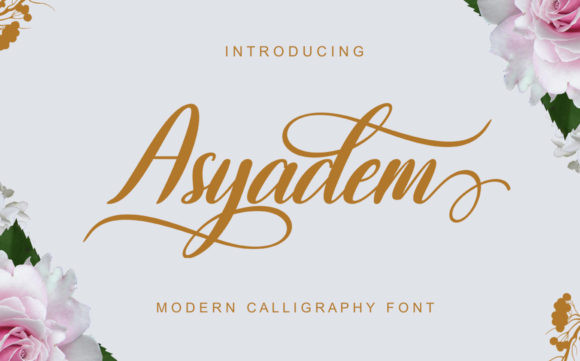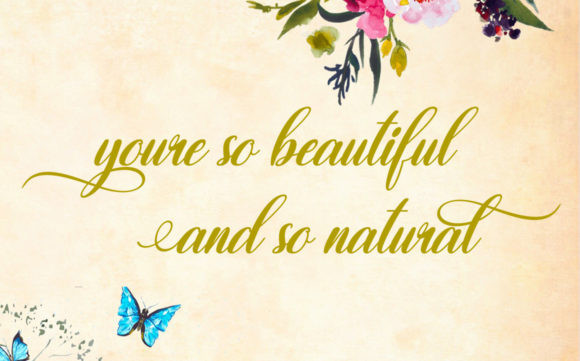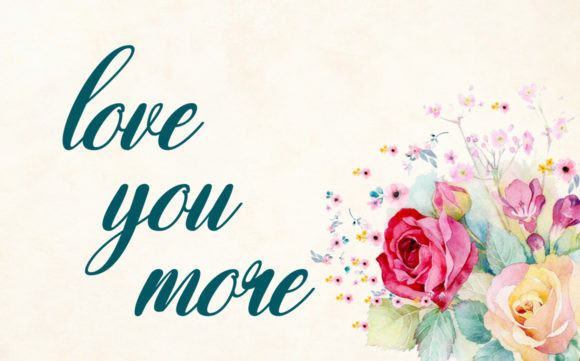
Asyadem Font
Asyadem simplifies elegance into one truly outstanding handwritten font. It maintains its classy calligraphic influences while feeling contemporary and fresh.